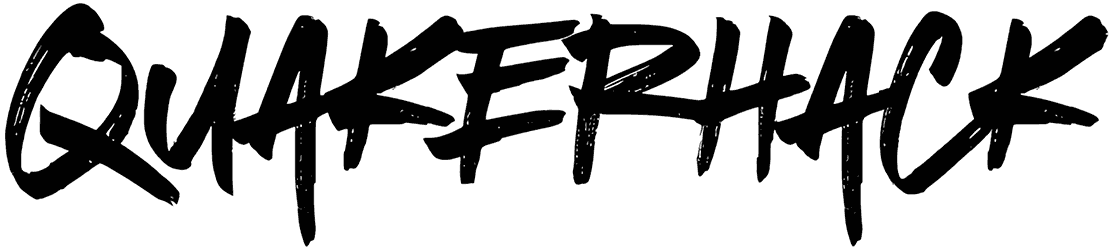
Quakerhack Font
Quakerhack is a well-designed script font that immediately grabs your audience’s attention. This font has a great style and can be helpful for several cases.
You may use Quakerhack in posters, prints on T-shirts, and advertisements; however, it does not support lowercase letters and some numbers. This vaporwave font’s letters have an active form, boosting your energy. Moreover, they are bold with angular edges, making them entertaining to the viewers, so download this font now.